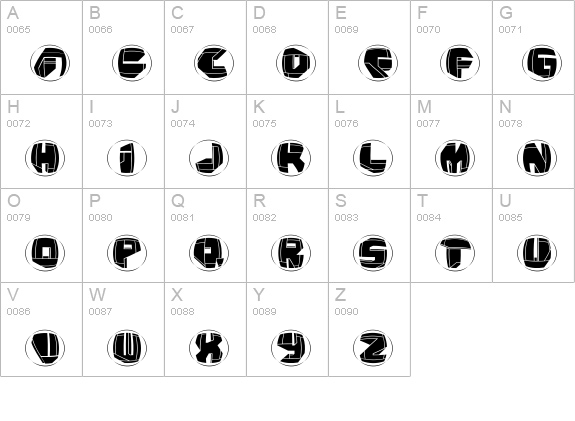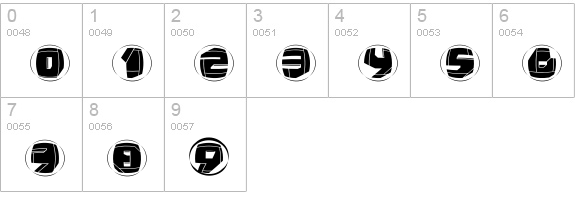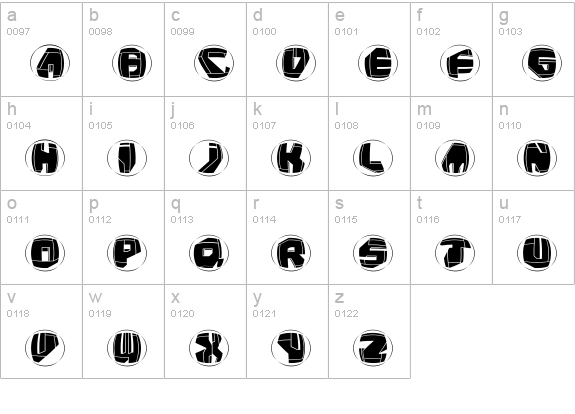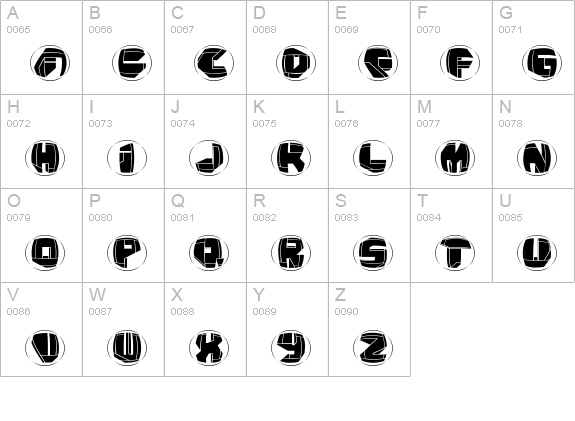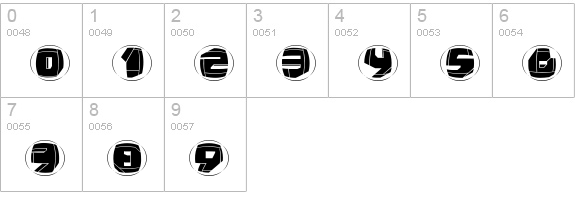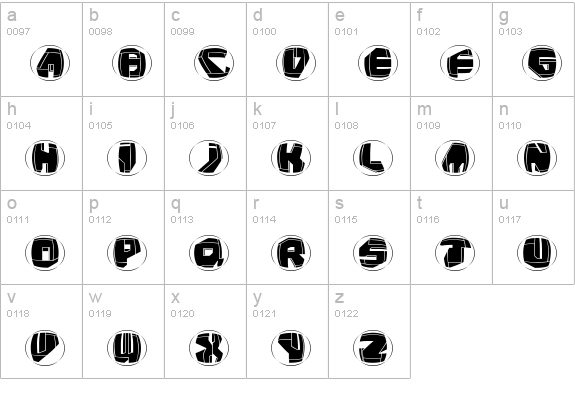
NeoPanRings Font Details
Introducing NeoPanRings, a captivating and versatile font that will add a touch of elegance and sophistication to your designs. With its clean lines and intricate details, NeoPanRings is perfect for a wide range of projects, from branding and logos to invitations and packaging. This font exudes a sense of modernity and innovation, while still maintaining a classic and timeless appeal. Its sleek and stylish appearance will effortlessly elevate any design, making it stand out in a crowd. One of the most remarkable aspects of NeoPanRings is its versatility. Whether you're aiming for a bold and impactful look or a more subtle and refined style, this font has you covered. Its wide range of weights and styles allows for endless creative possibilities, ensuring that you can always find the perfect fit for your project. And the best part? NeoPanRings is completely free to download at FontsMarket.com. Yes, you read that right - this incredible font is available at no cost, making it accessible to designers of all levels. So why wait? Enhance your designs with the timeless beauty of NeoPanRings, and watch as your creations come to life. Download NeoPanRings today and unlock a world of design possibilities. Don't miss out on this incredible opportunity to add a touch of elegance and sophistication to your projects, all for free. Get your creative juices flowing and let NeoPanRings be your secret weapon in creating stunning designs that will leave a lasting impression.